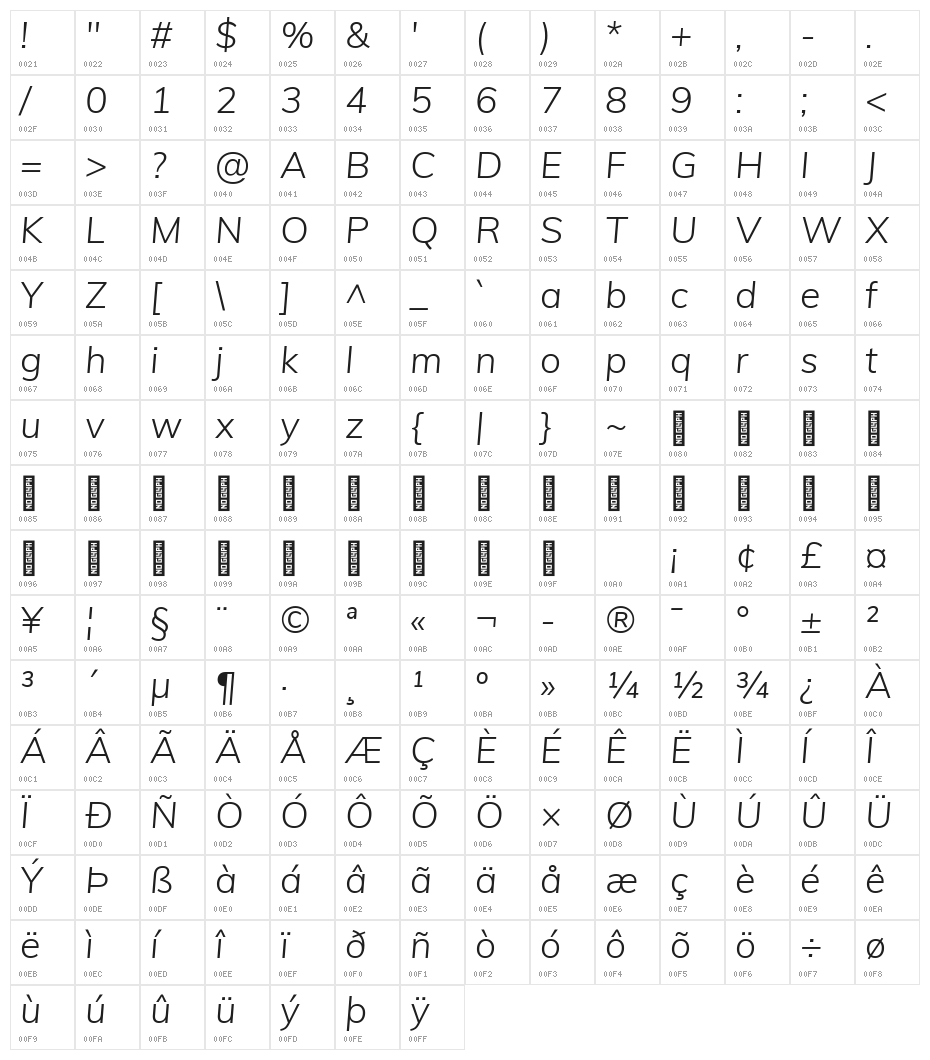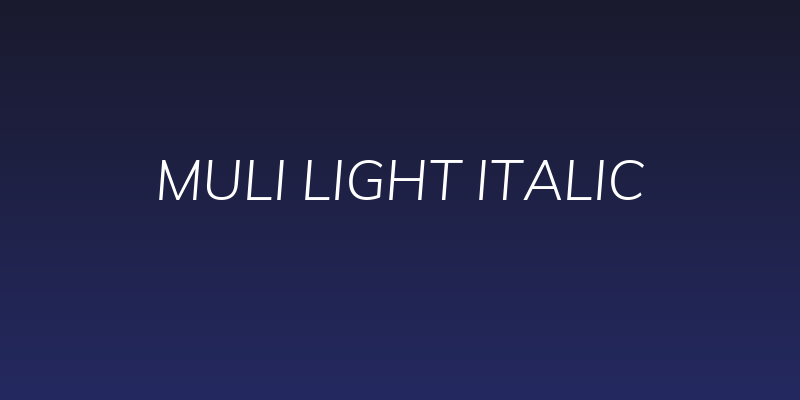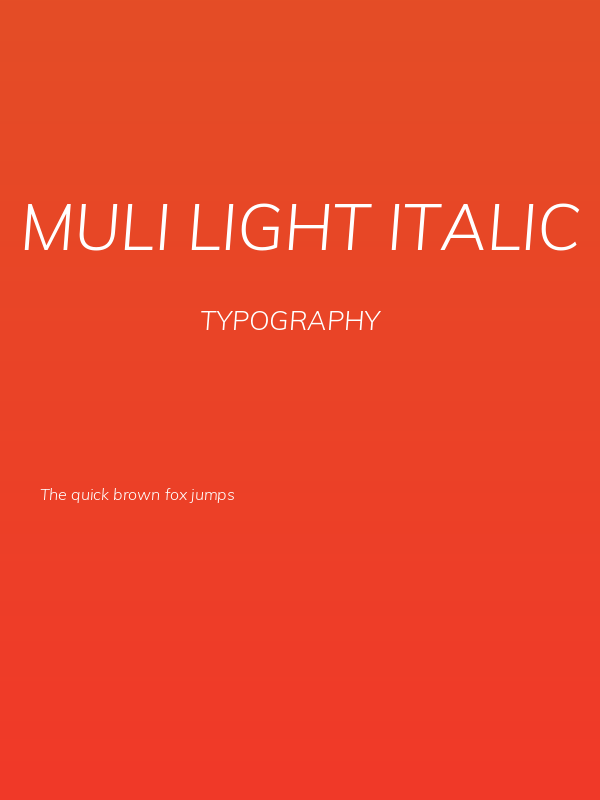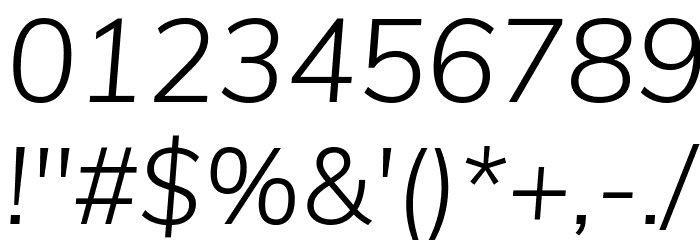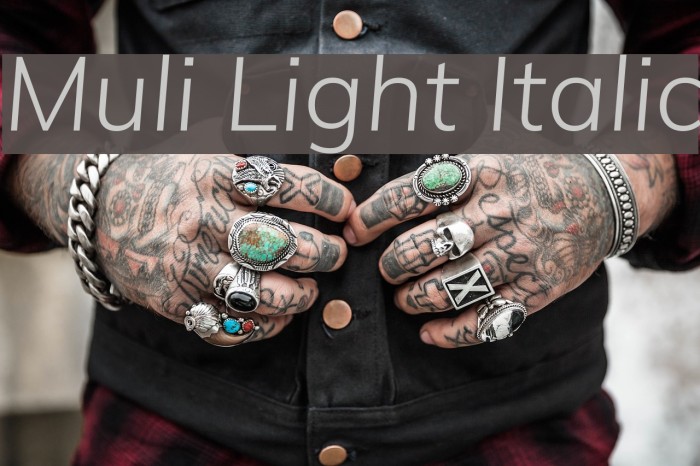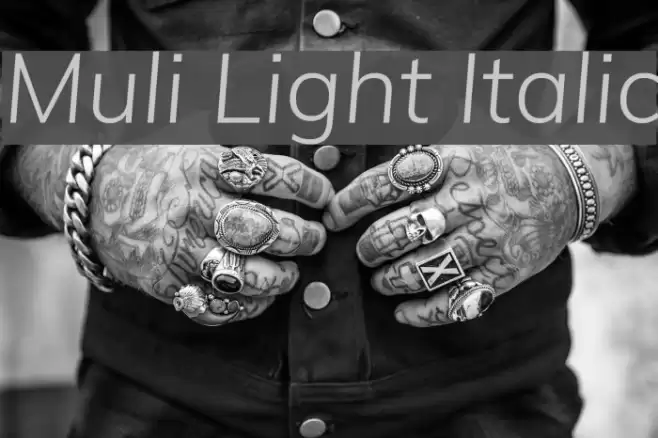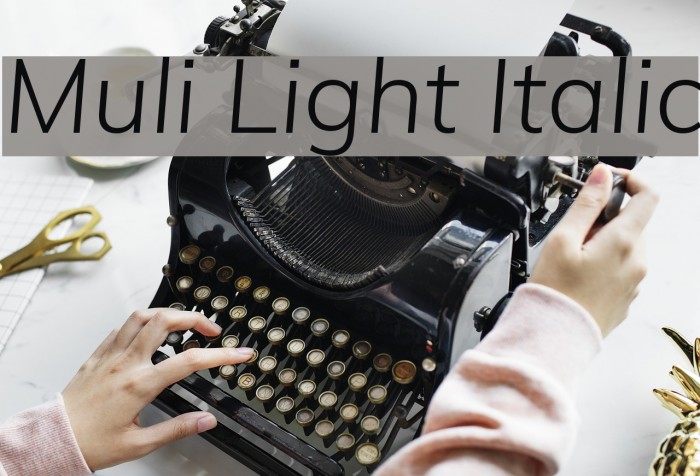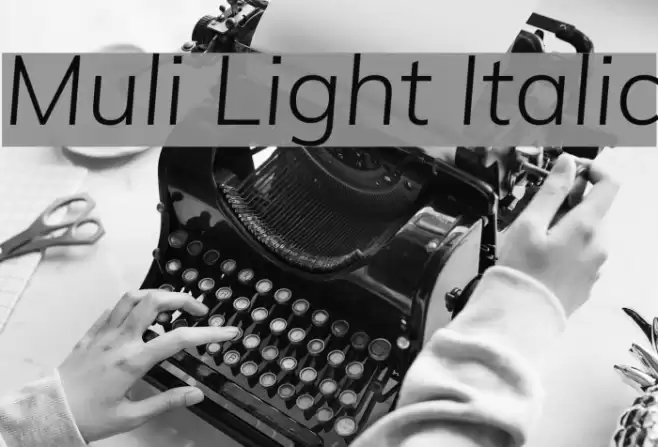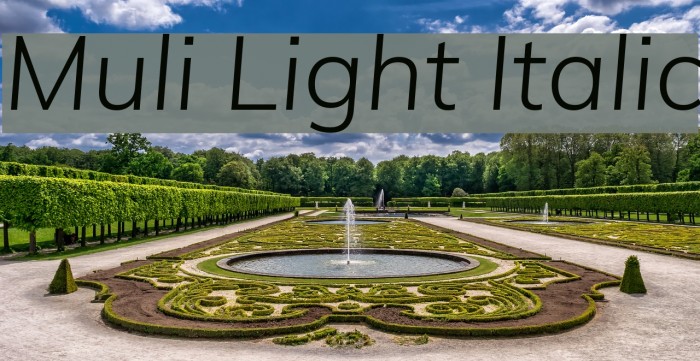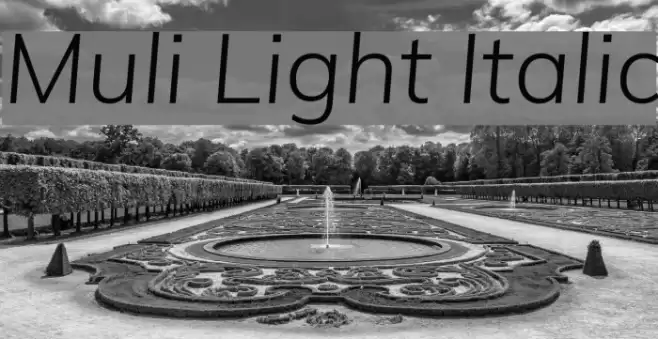
Muli Light Italic Font
✎ Sans Serif
Muli Light Italic Description
This font features a clean and modern sans-serif design with a light weight and italic style. The characters are sleek and slightly elongated, giving it an elegant and contemporary appearance. The strokes are consistent and smooth, with a uniform thickness that enhances readability. The font maintains a balanced and airy feel, making it suitable for a variety of design applications. Its minimalist aesthetic is complemented by a subtle slant, adding a touch of sophistication without compromising clarity. The spacing between characters is normal, ensuring legibility across different sizes and contexts.
| Use Case | Headlines, Body text, Logos |
| Proposed Projects | Ideal for modern branding, digital interfaces, minimalist posters, and editorial design. |